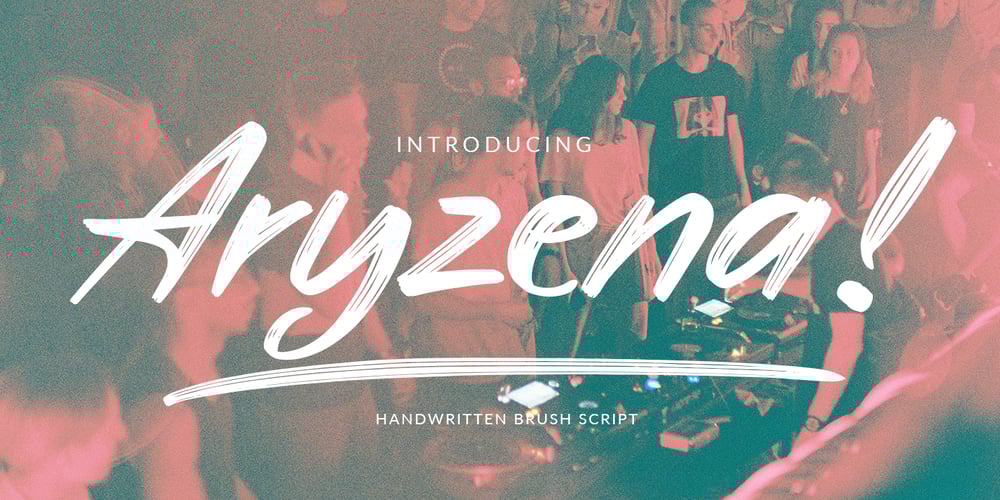
Aryzena Font Family was designed by Gitayogi Irhandi and published by Scratch Design. Aryzena contains 1 styles and family package options. Aryzena is handwritten, textured, artistic brush script. This font also has swash characters that make your design more attractive and natural, giving your text an authentic and laid-back characteristic. This font works well in designs for clothing, tittle books, quotes, branding, logos, packaging designs, posters, invitation, mural and more!